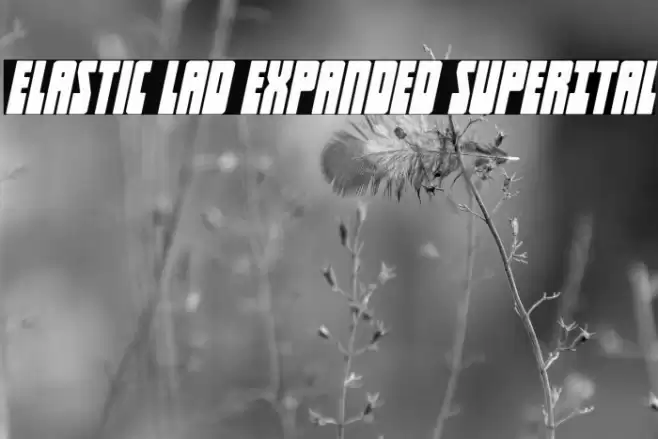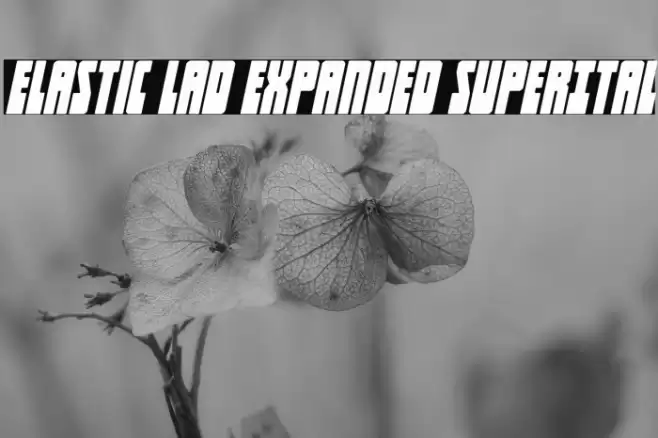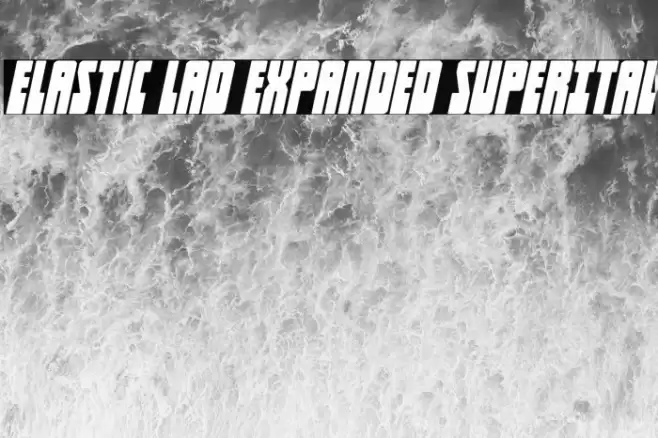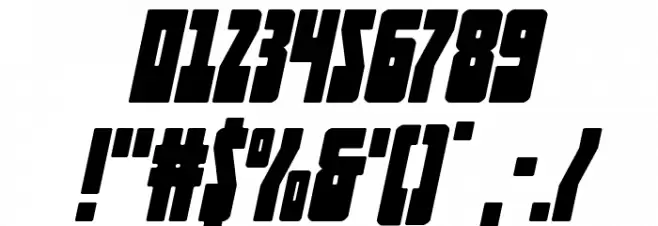
Elastic Lad Expanded SuperItal Font
Elastic Lad Expanded SuperItal Description
This font features a bold and dynamic style with a distinctly expanded and italicized form. The characters are heavily slanted, giving a sense of movement and energy. The strokes are thick and uniform, creating a strong visual impact. The design is geometric with sharp angles and clean lines, making it suitable for attention-grabbing headlines or titles. The uppercase and lowercase letters maintain a consistent style, while the numerals and special characters integrate seamlessly with the overall aesthetic.
A bold, expanded, and italicized font with a dynamic and geometric style from Uncategorized fonts.
- Proposed Projects: Ideal for sports branding, dynamic posters, modern advertisements, and any project requiring a bold statement.